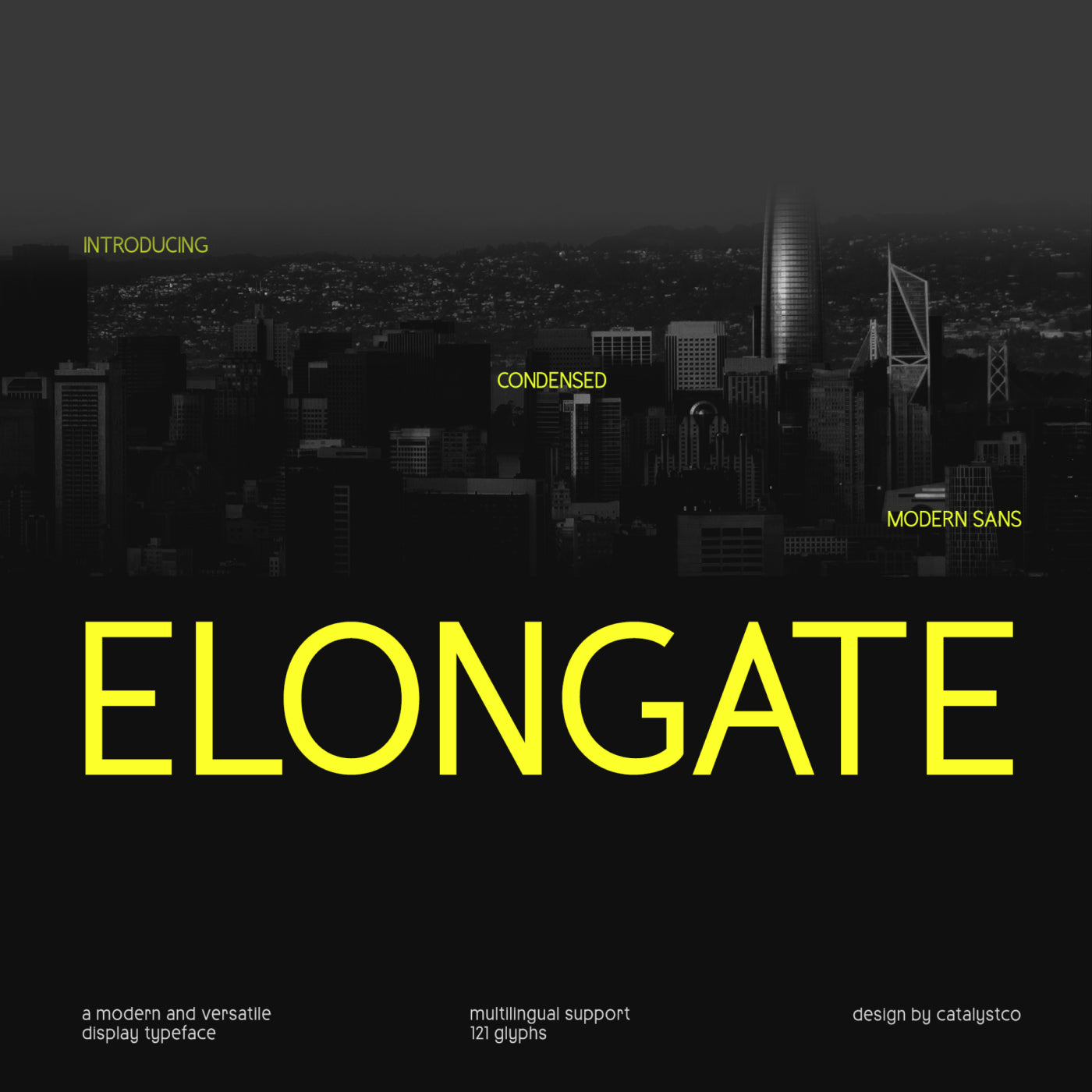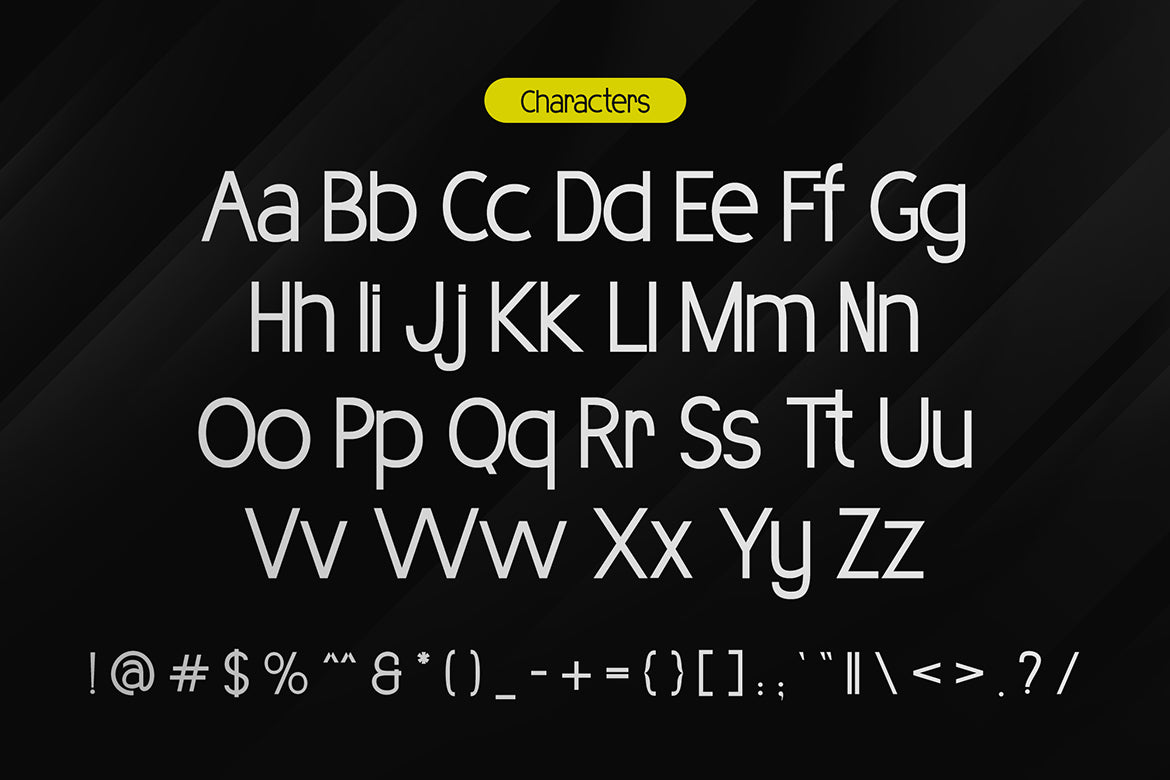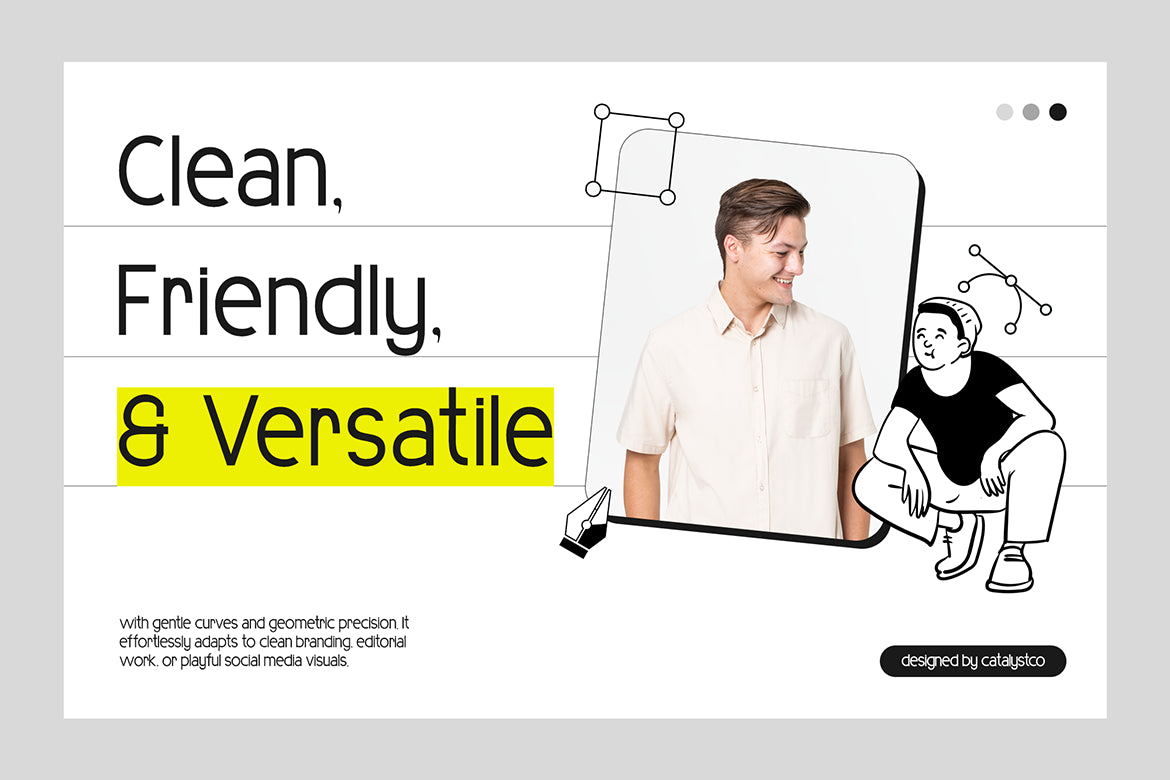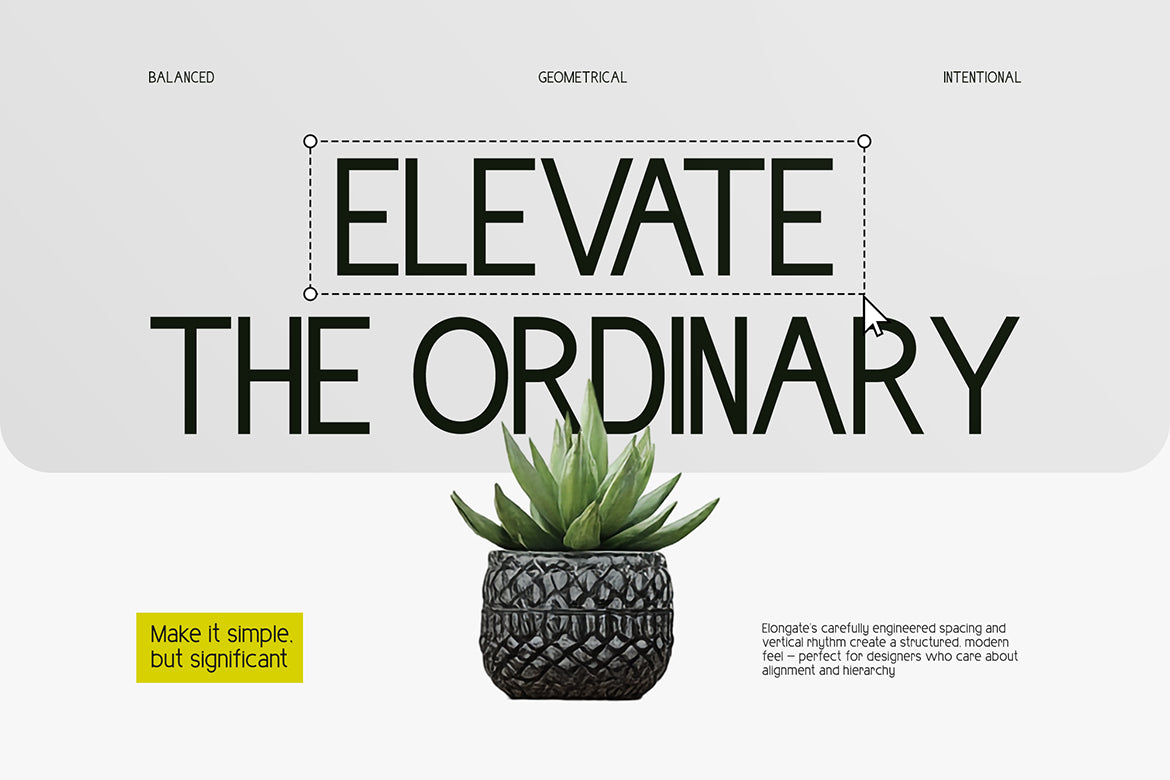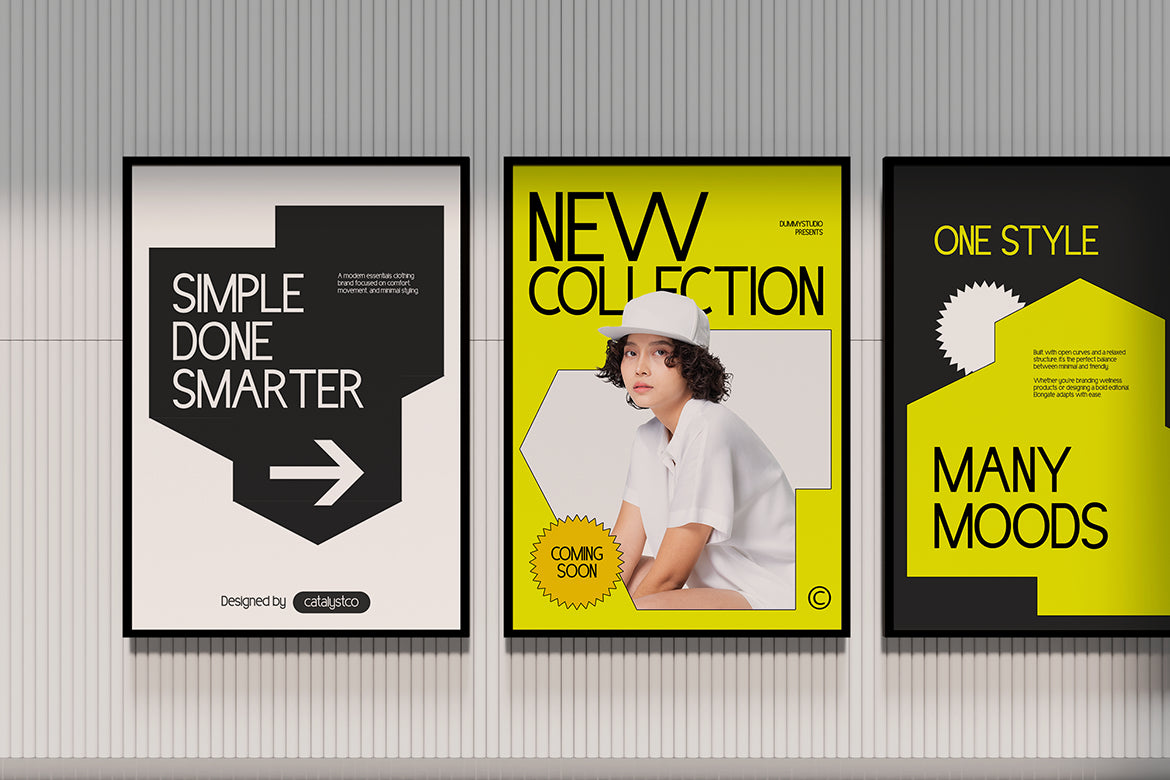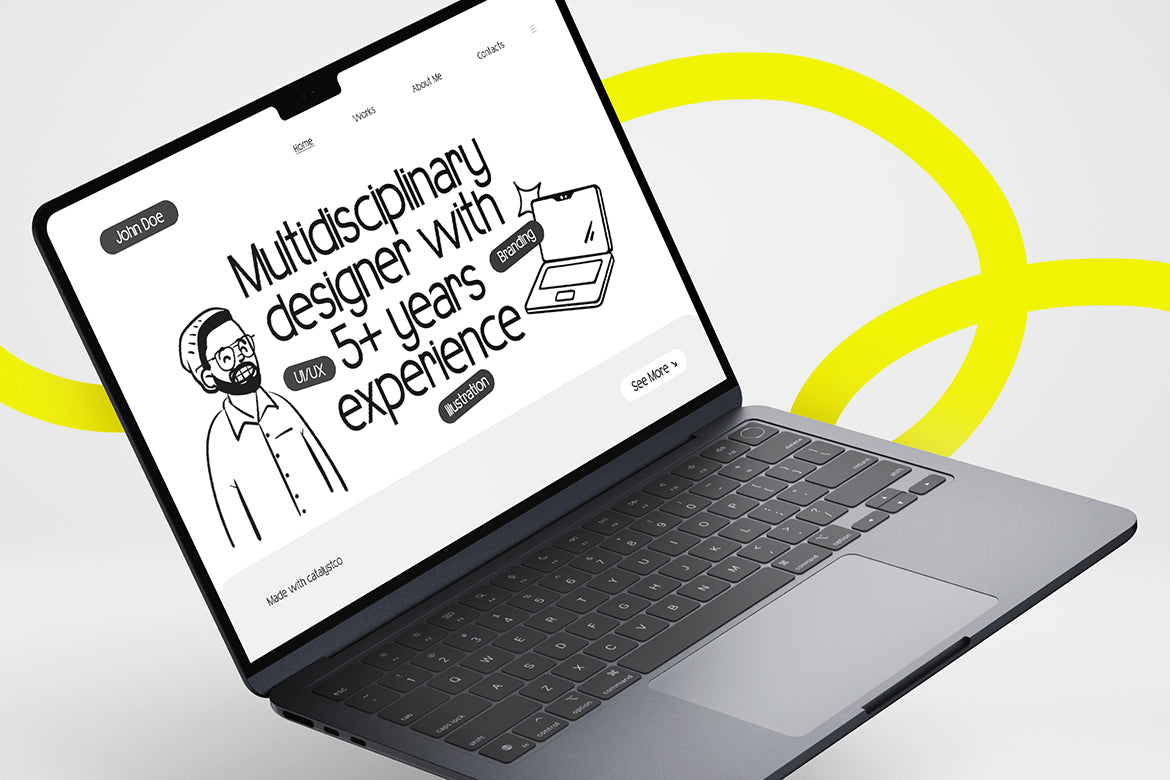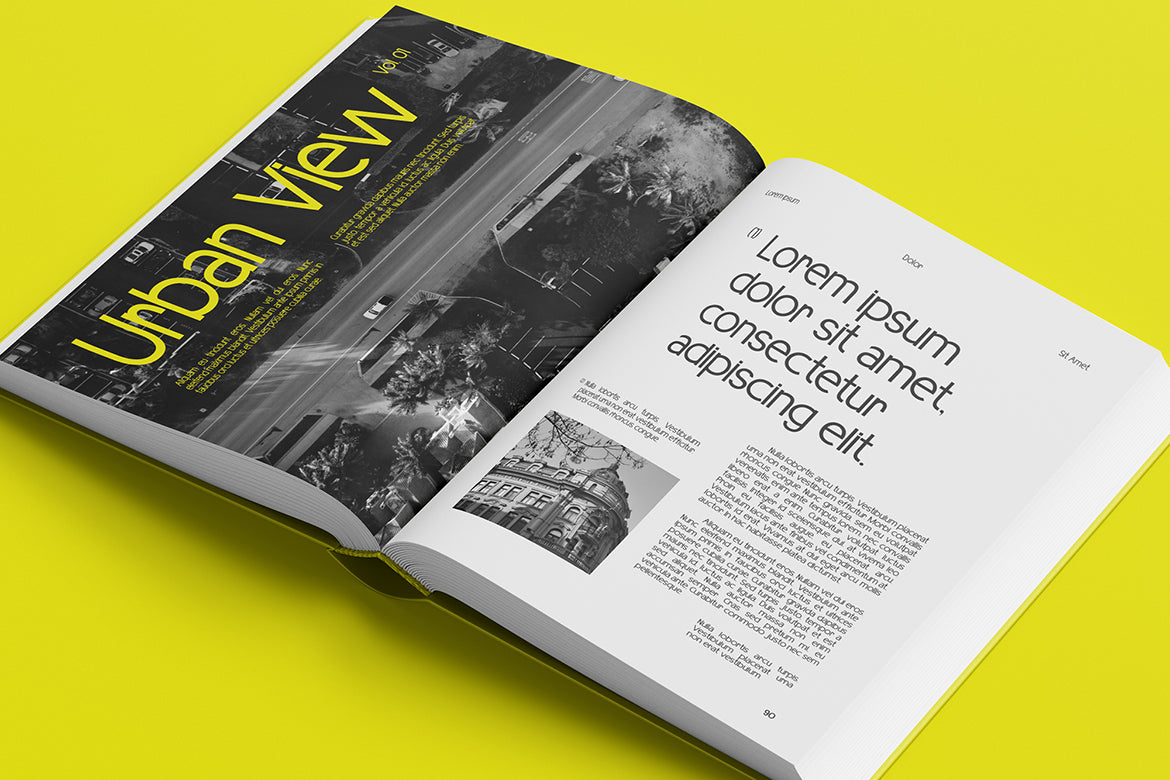
Elongate Modern Sans Serif Font
Elongate is a modern and versatile display typeface designed with sleek, condensed letterforms. Its elongated strokes give it a futuristic, bold look that balances clarity with a strong presence. Ideal for high-impact headlines, branding, and digital media, it stands out in both large and small applications. The font offers multilingual support with 121 glyphs, ensuring global accessibility for diverse projects.
Elongate is a condensed sans serif display typeface with elongated strokes, uppercase and lowercase characters, numerals, and punctuation. It includes 121 glyphs with multilingual support and is available in TTF, OTF, and WOFF formats.